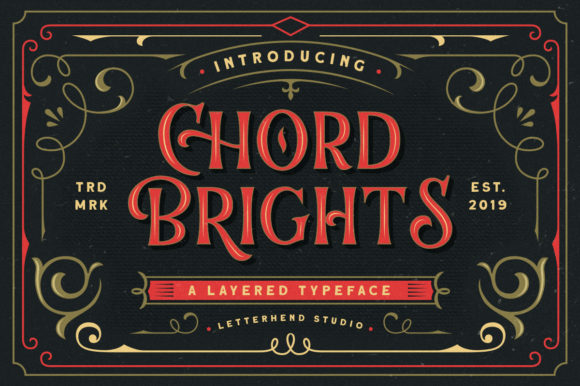
Introducing Chord Brights Font: The Perfect Addition to Your Retro Projects
Are you looking for a font that can add a touch of vintage charm to your designs? Look no further than Chord Brights Font. This lovely vintage font is perfect for retro projects, with its unique and eye-catching style that’s sure to grab attention.
What is Chord Brights Font?
Chord Brights Font is a carefully crafted font that features four different layers: inline, regular, outline, and shadow. This allows you to experiment with different combinations to create a unique look that suits your project. The font is designed to evoke a sense of nostalgia and playfulness, making it perfect for retro-themed designs.
Key Features of Chord Brights Font
- Four different layers: inline, regular, outline, and shadow, allowing for endless creative possibilities.
- Vintage-inspired design: perfect for retro projects, such as posters, flyers, and social media graphics.
- High-quality and legible: ensuring that your text is easy to read and understand.
The Benefits of Using Chord Brights Font
So why choose Chord Brights Font for your retro projects? Here are just a few benefits of using this amazing font:
- Instant retro charm: Chord Brights Font instantly adds a touch of vintage charm to your designs, making them stand out from the crowd.
- Versatility: with four different layers to experiment with, you can create a wide range of unique looks to suit your project.
- Unique and creative: with Chord Brights Font, you can create designs that are truly one-of-a-kind and reflective of your personal style.
How to Use Chord Brights Font
Here are a few tips for getting the most out of Chord Brights Font:
- Experiment with layer combinations: try pairing the inline and outline layers for a bold, eye-catching look.
- Play with color: Chord Brights Font looks great in bright, bold colors, so don’t be afraid to get creative.
- Mix and match: combine Chord Brights Font with other fonts and design elements to create a unique look.
Examples of Chord Brights Font in Use
Chord Brights Font is perfect for a wide range of retro-themed projects. Here are a few examples of how you could use this amazing font:
- Retro posters: use Chord Brights Font to create bold, eye-catching posters for concerts, festivals, or other events.
- Vintage-style social media graphics: add a touch of retro charm to your social media graphics with Chord Brights Font.
- Retro-themed merchandise: use Chord Brights Font to create fun and unique merchandise, such as t-shirts, stickers, or tote bags.
Chord Brights Font is a lovely vintage font that’s perfect for retro projects. With its four different layers and high-quality design, it’s the perfect addition to your design workflow. Whether you’re creating posters, social media graphics, or merchandise, Chord Brights Font is sure to add a touch of vintage charm and creativity to your designs.